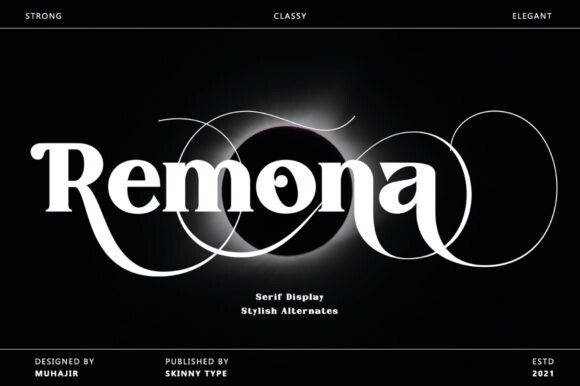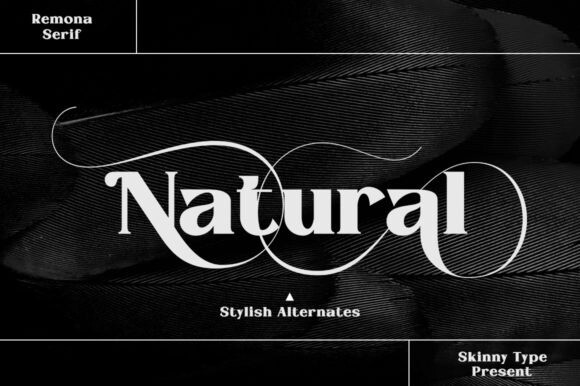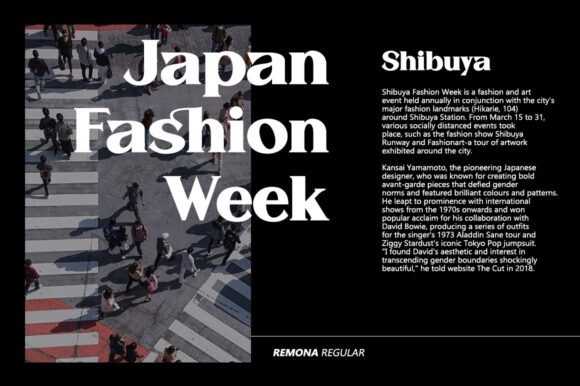
Remona Font
Remona is a confident serif. Designed to reflect nature, it creates a sense of softness and natural expression.
The type family blends organic curves and soft repetition into strong and harmonious types. At large dot sizes, you can appreciate the shape of the letters, while the same control and focus create an even texture for small dot sizes and long reads. Fonts extend their use by providing a variety of unique language and style supports.
The Remona character set combines additional symbols, style alternatives, unique binding, and case-sensitive punctuation – resulting in a stable, hardworking family ready to tackle projects of any size.